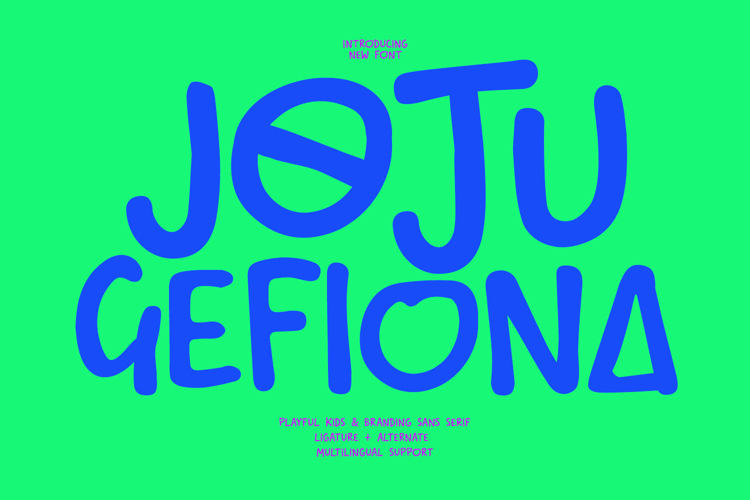
Joju Gefiona Playful Kids Branding Sans Serif
Joju Gefiona is a vibrant, hand-drawn sans serif font designed to bring a sense of joy and whimsy to any creative project. Characterized by its soft, rounded edges and unique geometric alternates—like the triangular 'A' and circular 'O'—this typeface perfectly captures a childlike wonder. Whether you are designing eye-catching design, school supplies, fun branding, or social media quotes, Joju Gefiona offers a friendly and approachable aesthetic. It includes ligatures and multilingual support, making it a versatile choice for designers looking to add a "playful yet bold" to their work.
- Full character set
- Numbers, Punctuation, and Symbols
- Ligature and alternates for a natural handwriting flow